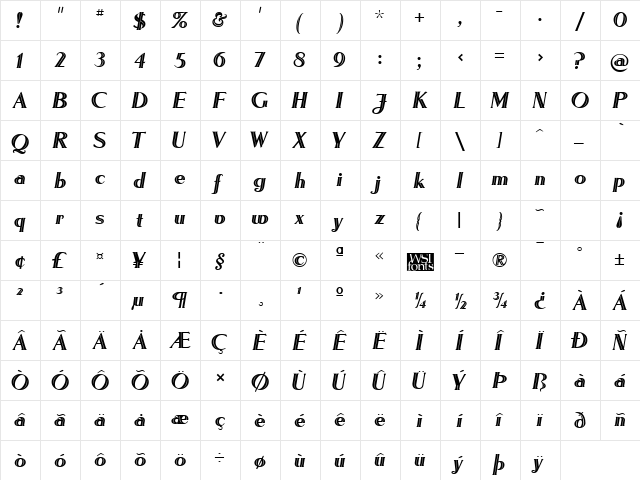
LyndseyInline Regular
Design Context for LyndseyInline Typeface
LyndseyInline is built around its visual character rather than neutral utility — its distinctive forms are designed to make an impression at display sizes.
Font Pairing: Pair with a clean neutral sans-serif for body copy to let LyndseyInline's character lead without overwhelming the composition.
Pro Tip: Treat LyndseyInline as the centrepiece of your typographic hierarchy. One strong heading set in a decorative face can carry an entire layout.